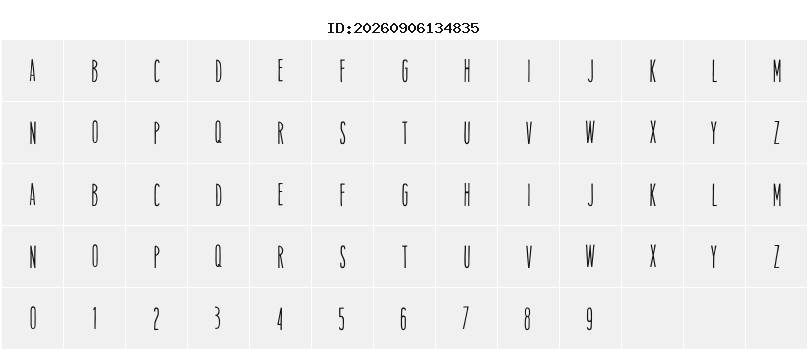
Tamales Regular Preview
• Font Name: Tamales Regular
• Font Style: Normal Upright
• Full Font Name: Tamales Regular Normal Upright
• Designer: HENRIavecunK
• Manufacturer: HENRIavecunK
• Description: Tamales Regular is a font by Henriavecunk. Designed in 2015.
About Tamales Regular.ttf
Tamales Regular.ttf is a modern, elegant sans-serif font designed for ultimate readability and visual harmony. Perfect for branding, headlines, web design, and print materials.